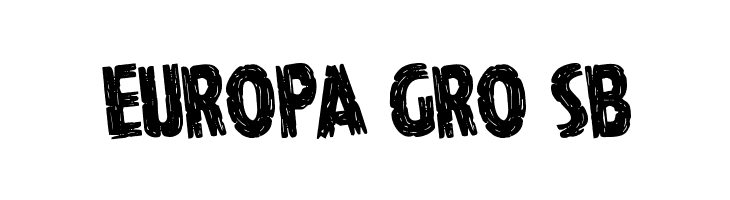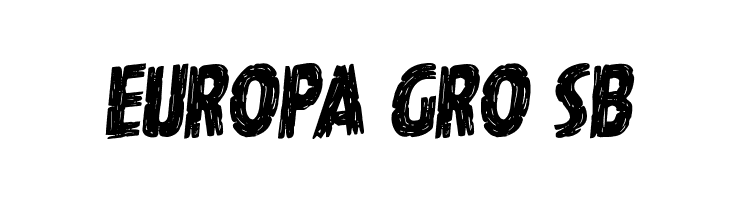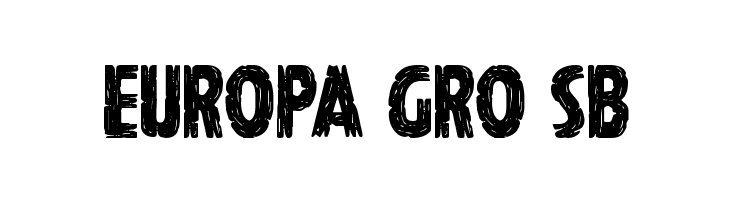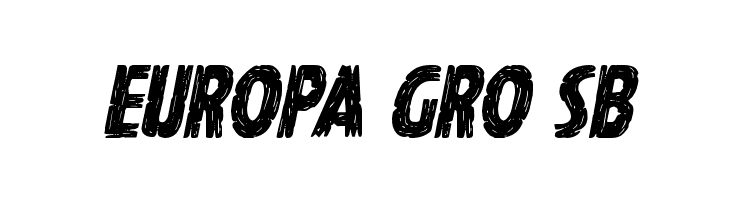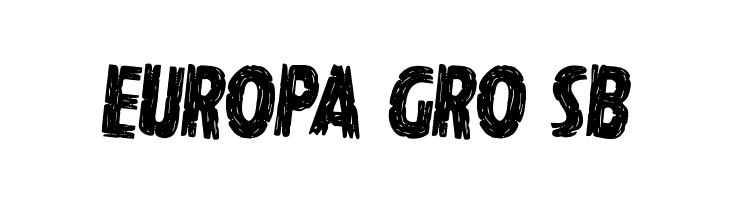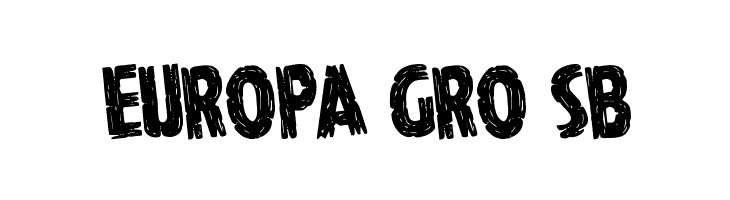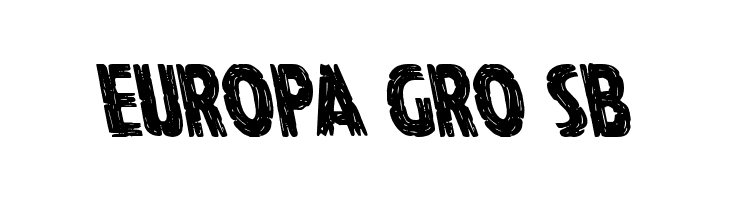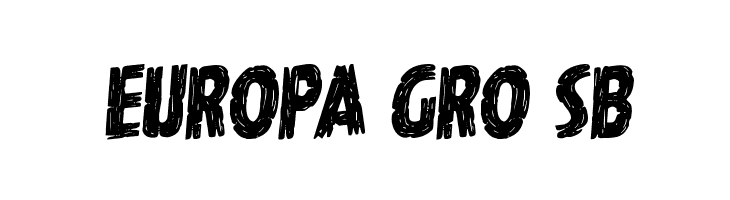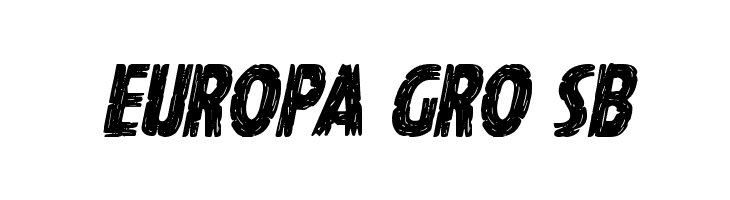
• Hanging Tree Italic
A bold, hand-drawn italic font with a textured, sketch-like appearance.
• Hanging Tree Leftalic
A bold, distressed, hand-drawn font with a rugged, energetic style.
• Hanging Tree Rotalic
A bold, textured, hand-drawn font with a dynamic and edgy style.
• Hanging Tree Rotated
A bold, hand-drawn font with a rough, textured, and dynamic appearance.
• Hanging Tree Rotated 2
A bold, distressed font with a hand-drawn, textured appearance.
• Hanging Tree Staggered
A bold, distressed font with a hand-drawn, textured appearance.
• Hanging Tree Staggered Italic
A bold, textured, staggered italic font with a hand-drawn appearance.
• Hanging Tree Staggered Rotalic
A bold, hand-drawn font with a staggered, textured appearance.
• Hanging Tree Staggered Rotated
A bold, hand-drawn font with a rugged, textured appearance.
• Hanglatter
A bold, energetic script font with a handwritten style.
• Hangout 3D Regular
A bold, 3D geometric font with a modern and impactful design.
• Hangout Italic
A bold, italicized font with a modern, dynamic style.
• Hangout Regular
A bold, modern font with geometric shapes and clean lines.
• hangouts-Regular
A bold, textured handwritten font with a playful and energetic style.
• hangouts-Regular
A bold, handwritten font with energetic brush-like strokes.
• Hangover
A bold, hand-drawn font with a playful, textured design.
• Hangover 2
A bold, distressed font with a rugged, vintage aesthetic.
• Hangover 2
A bold, distressed font with a rugged, vintage appearance.
• hangover monday
A playful, casual handwritten font with irregular strokes and a lively appearance.
• Hangover Monday Bold Italic
A bold, hand-drawn font with an energetic and playful style.